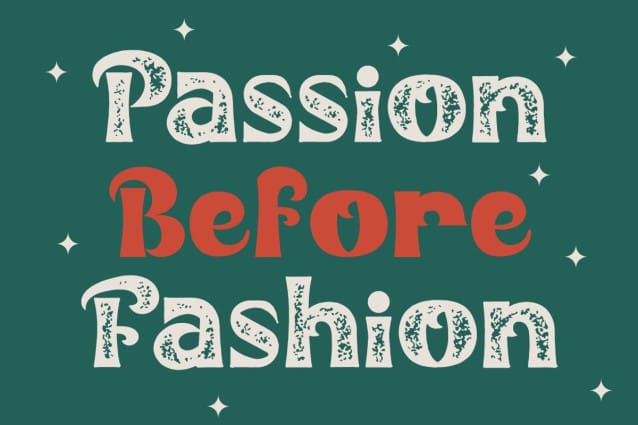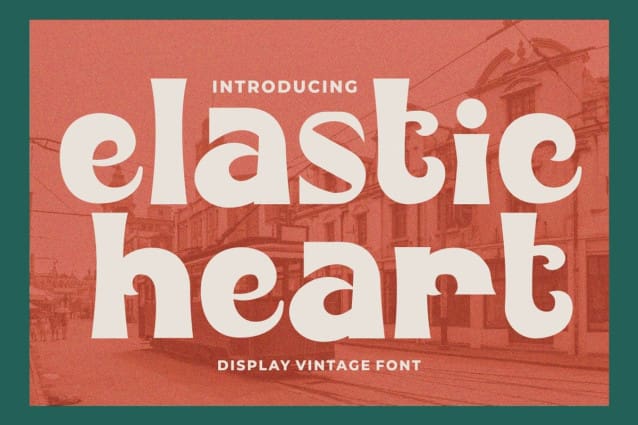
Elastic Heart Texture Font
Elastic Heart Texture Font is a display vintage font with beautiful ligatures, tons of alternative glyphs and multilingual support. It’s bold, groovy, clean and unique with vintage fell. Elastic Heart is very versatile font that works great in large and small sizes. Helps to create layout design in 60s or 70s design projects. Come with open type feature with a lot of alternates, its help you to make great lettering. Elastic Heart best uses for heading headlines, cover, poster, logos, quotes, product packaging, merchandise, social media & greeting cards and many more.